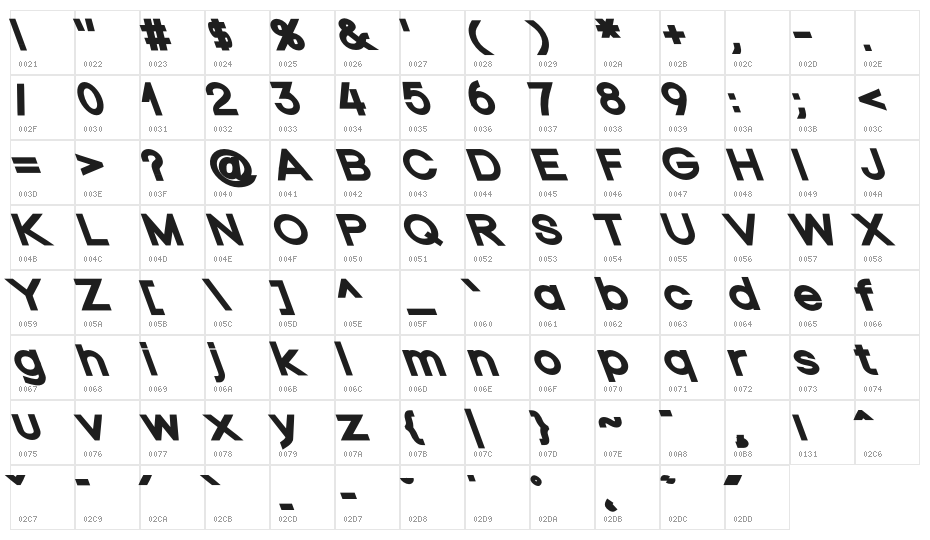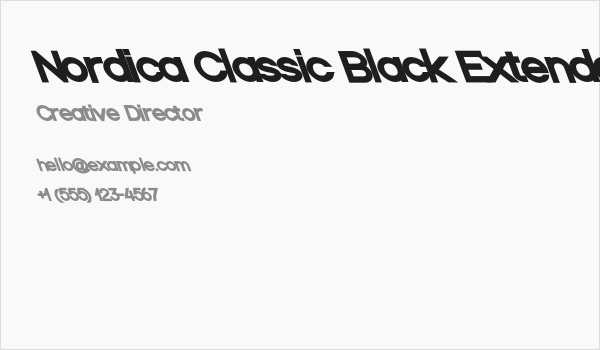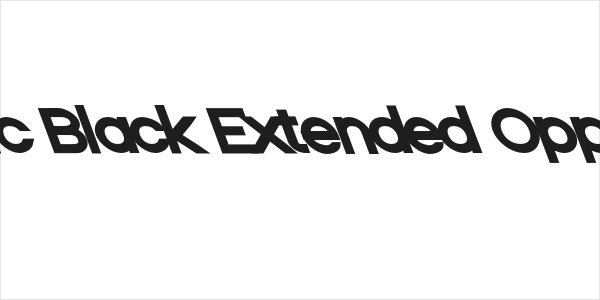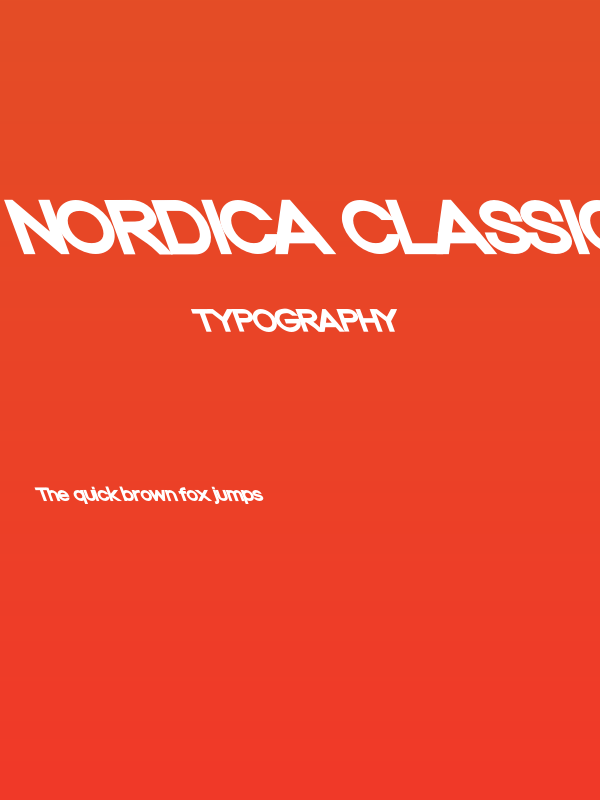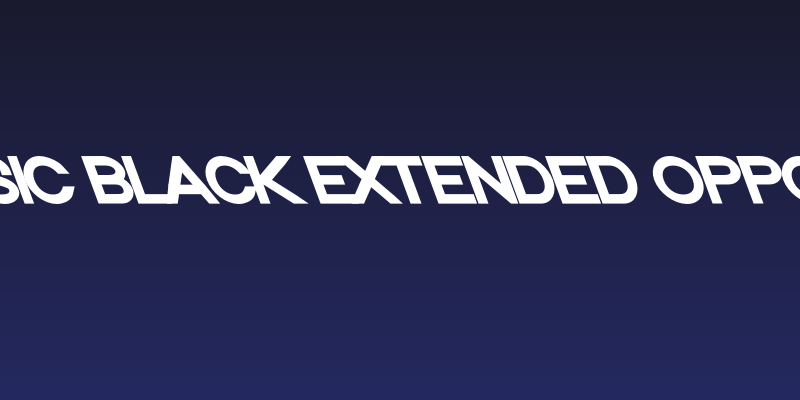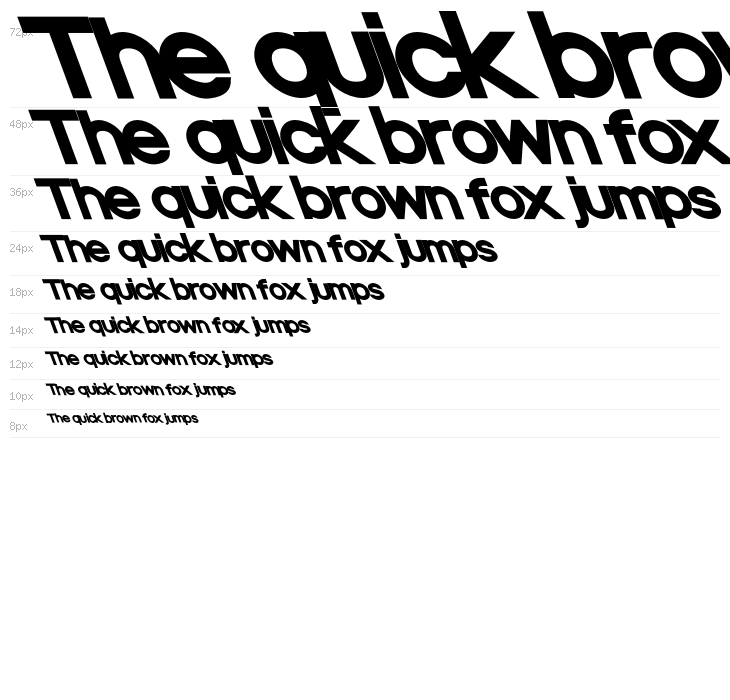
Nordica Classic Black Extended Opposite Oblique Font
Nordica Classic Black Extended Opposite Oblique Description
This font features a bold and dynamic style with a distinct oblique slant, giving it a sense of motion and energy. The characters are extended and have a strong presence, making them highly visible and impactful. The strokes are thick and consistent, contributing to a robust appearance. The design is modern and sleek, with clean lines and a geometric influence. The uppercase and lowercase letters maintain a uniform width, enhancing readability. The numerals and special characters are designed to match the boldness and style of the alphabet, ensuring a cohesive look across all text elements.
| Proposed Projects | Ideal for branding, advertising, posters, and headlines where a strong visual impact is needed. |